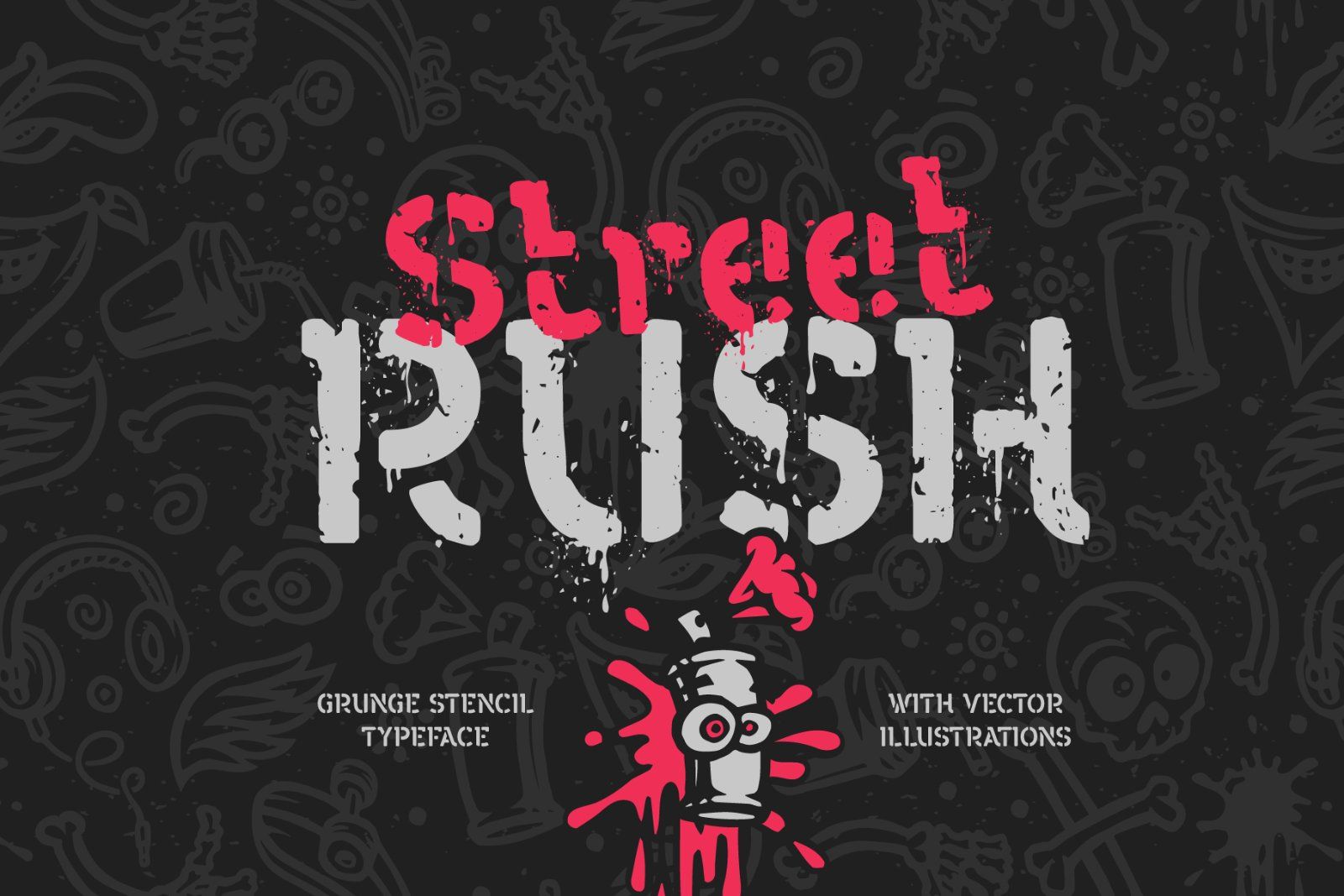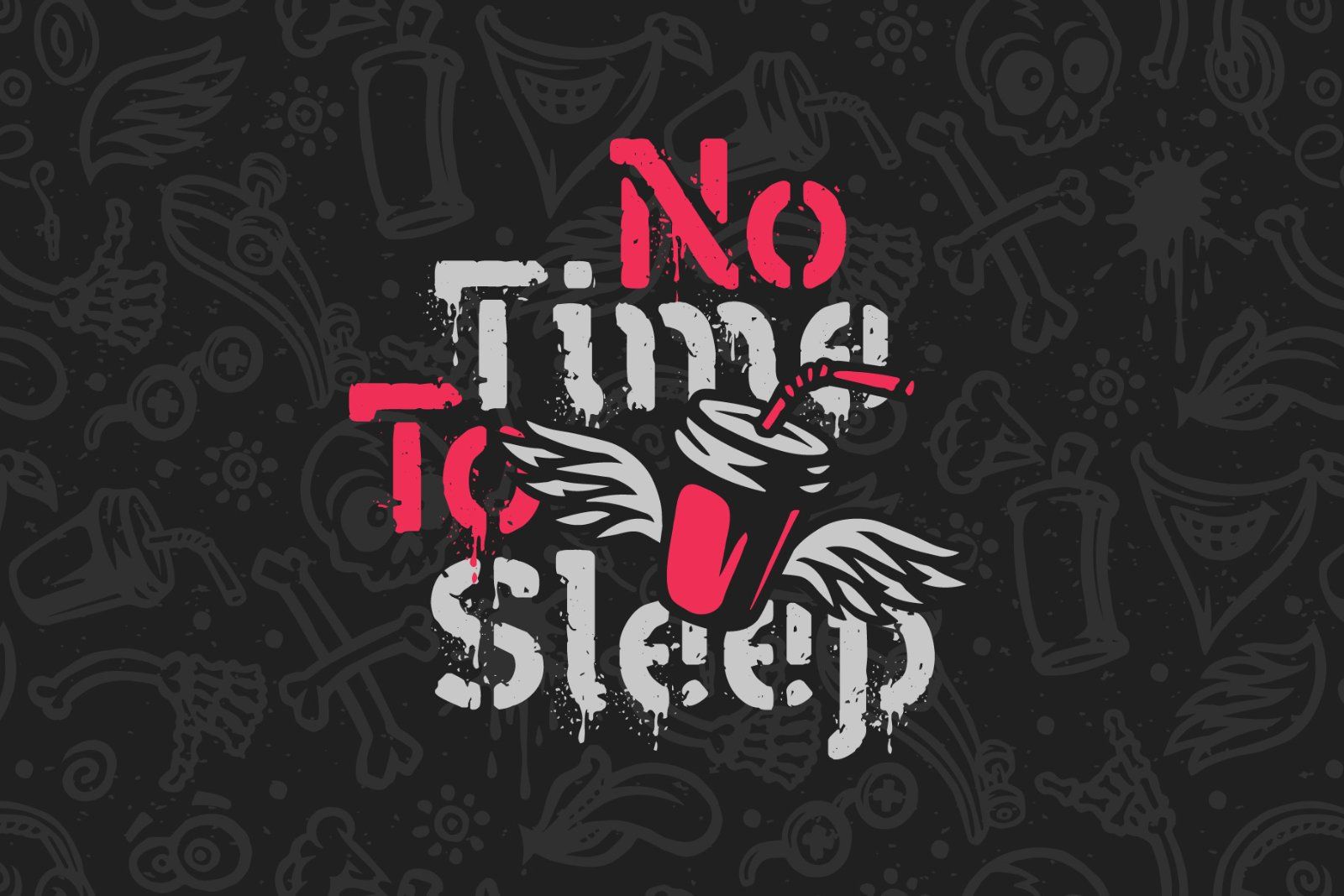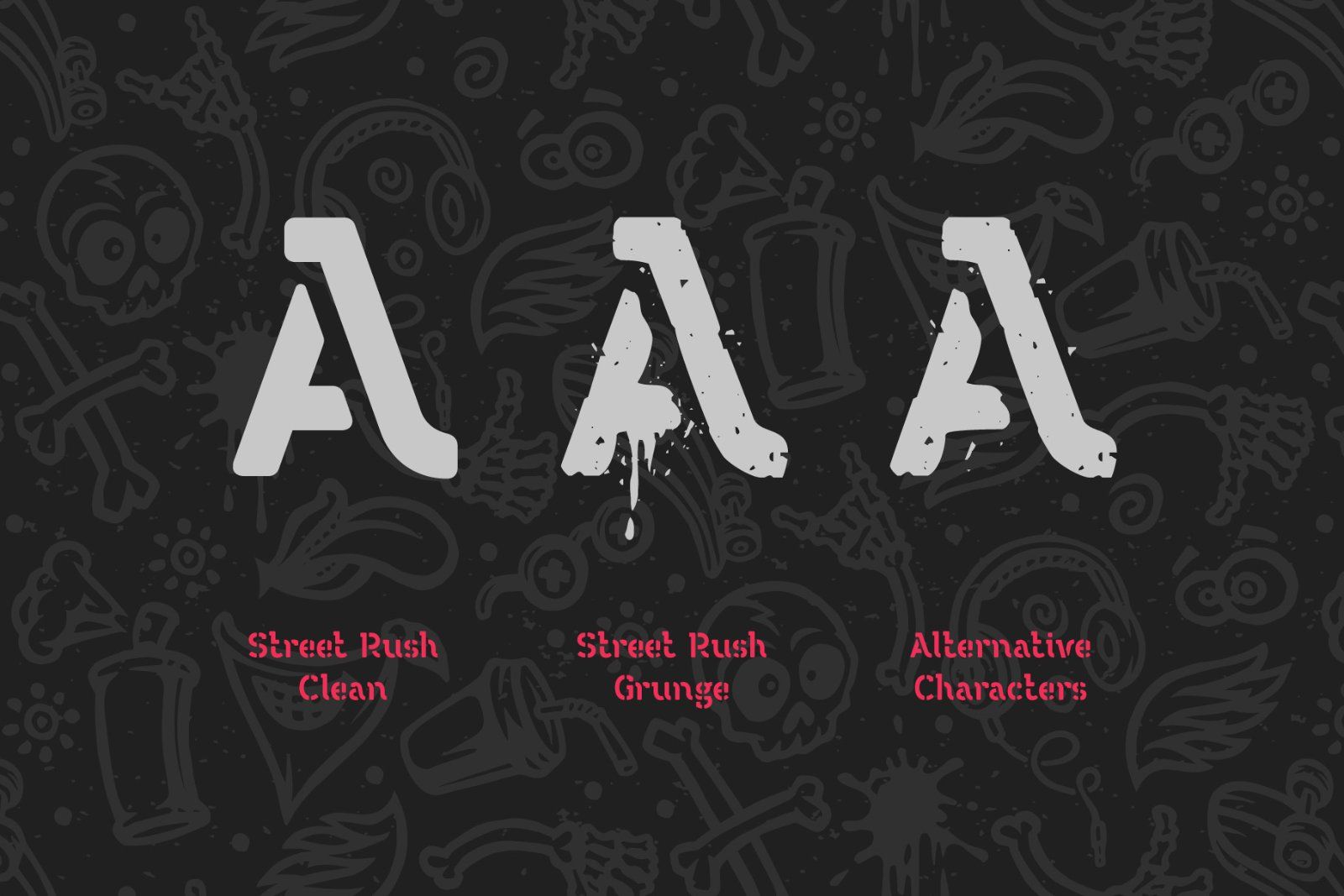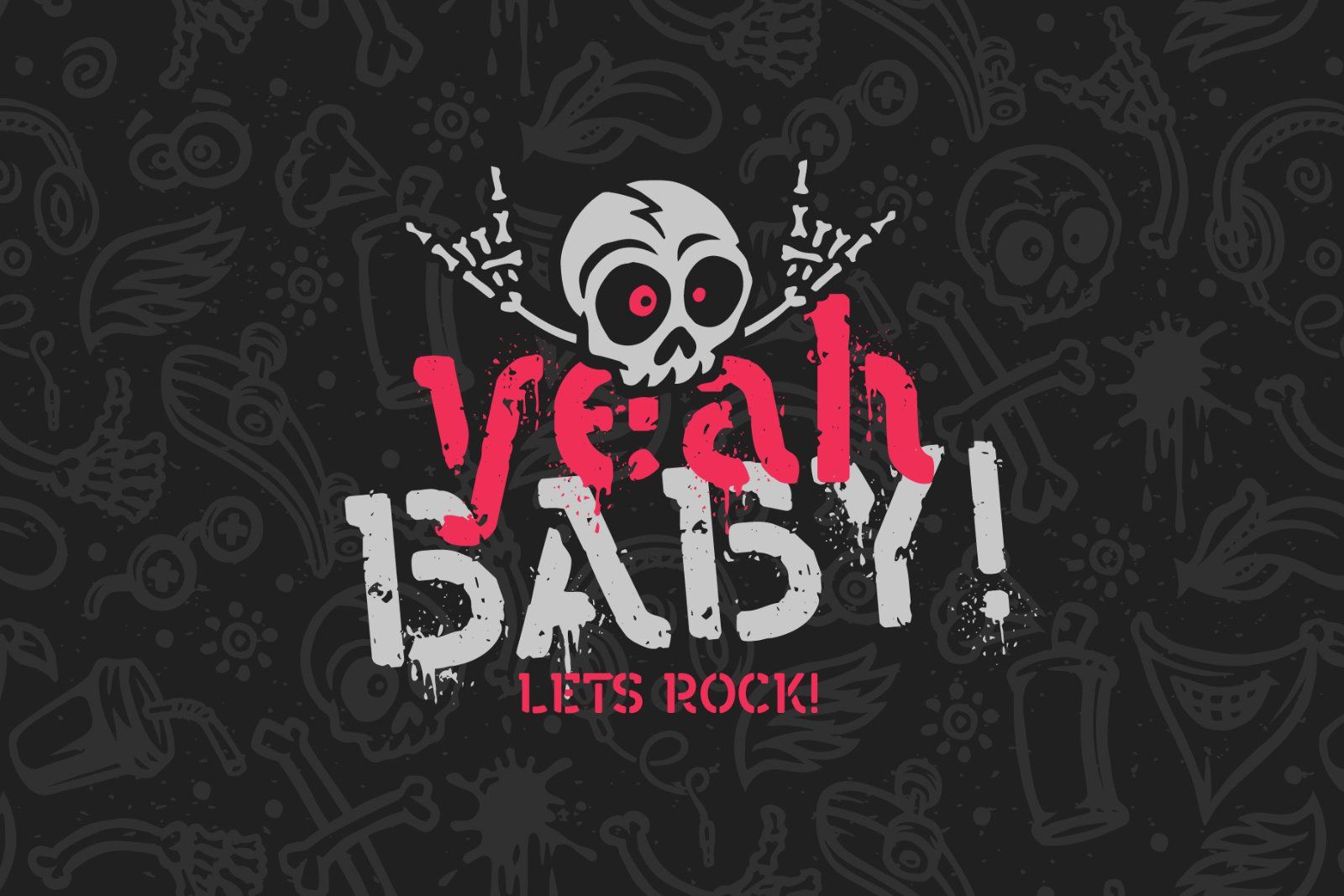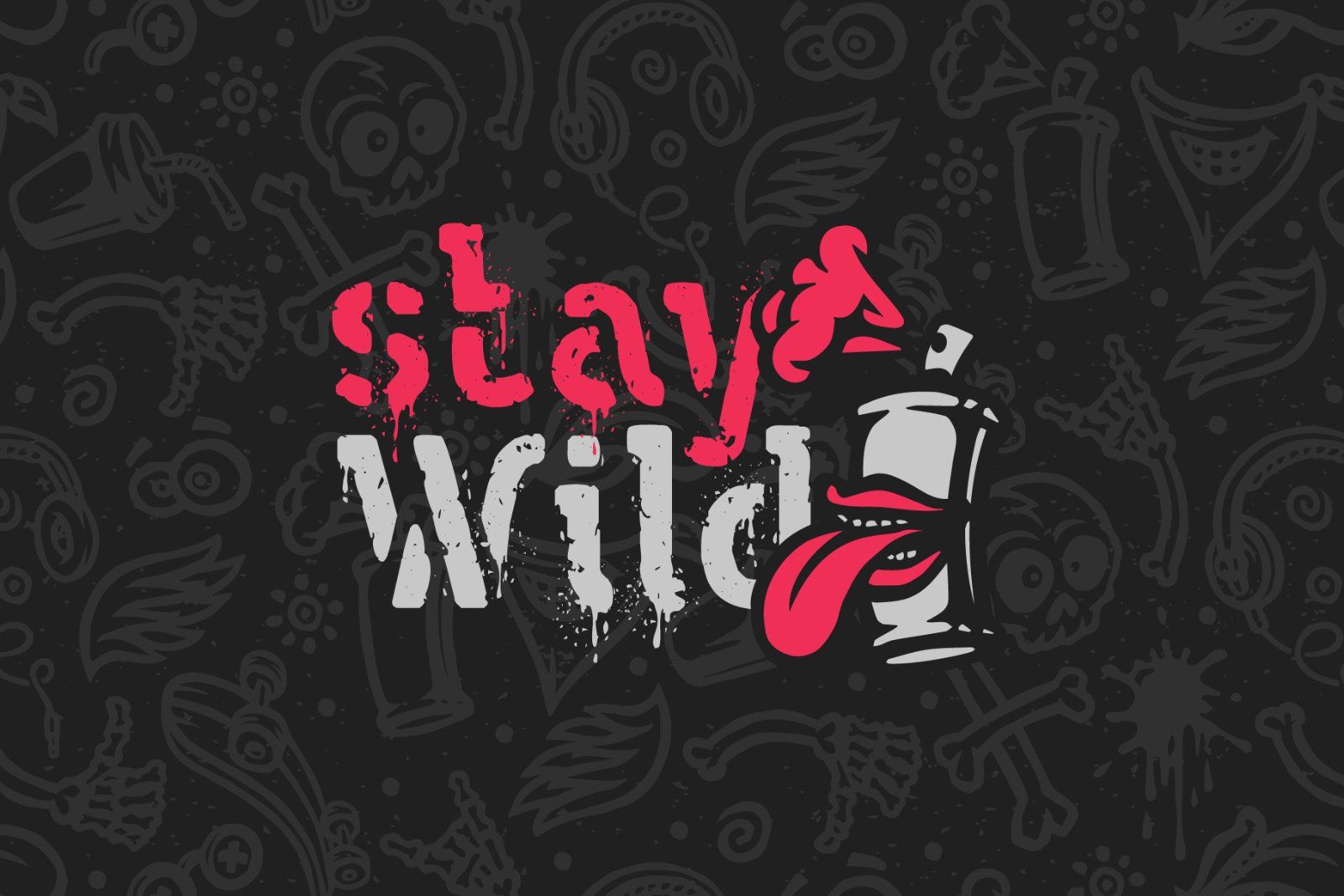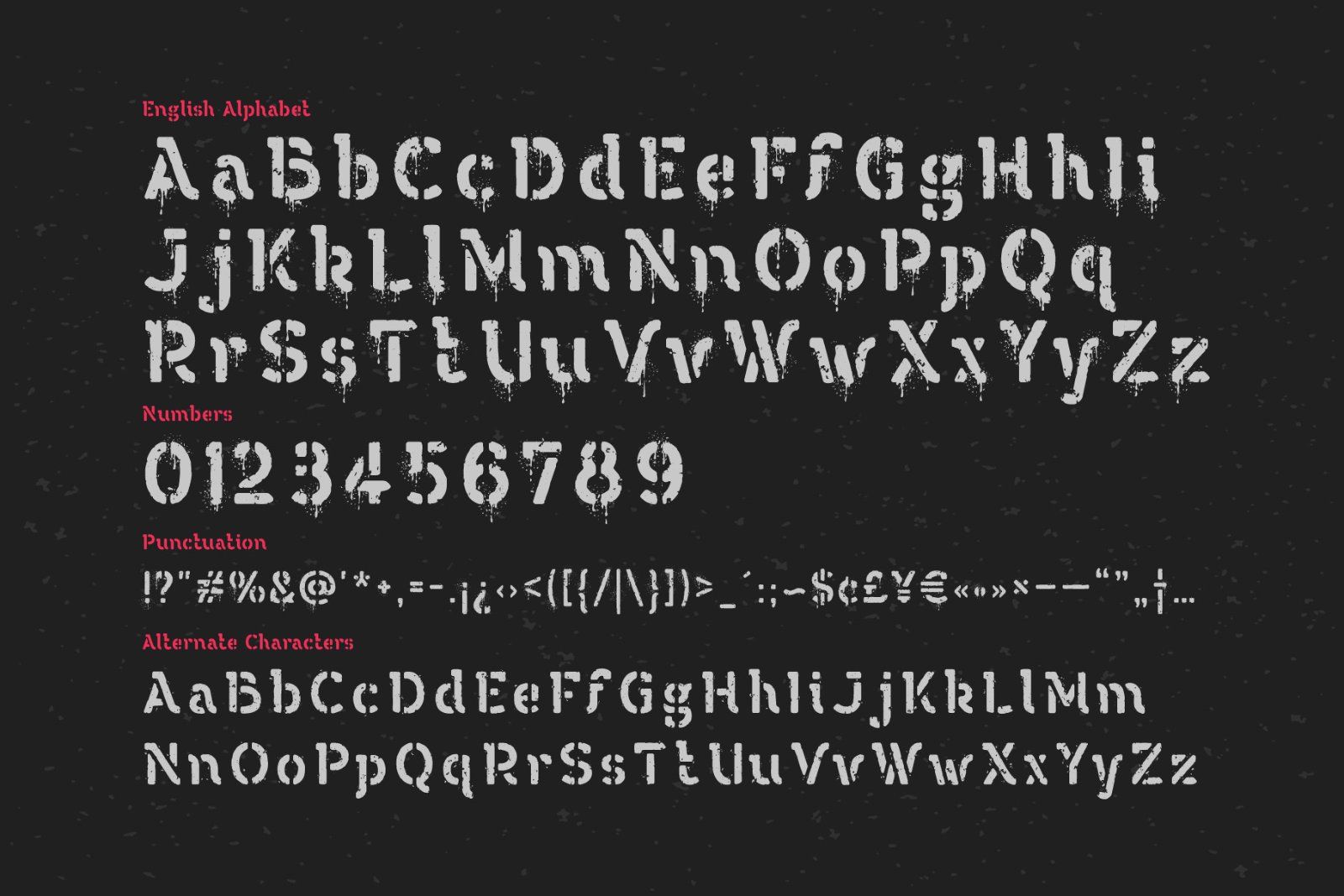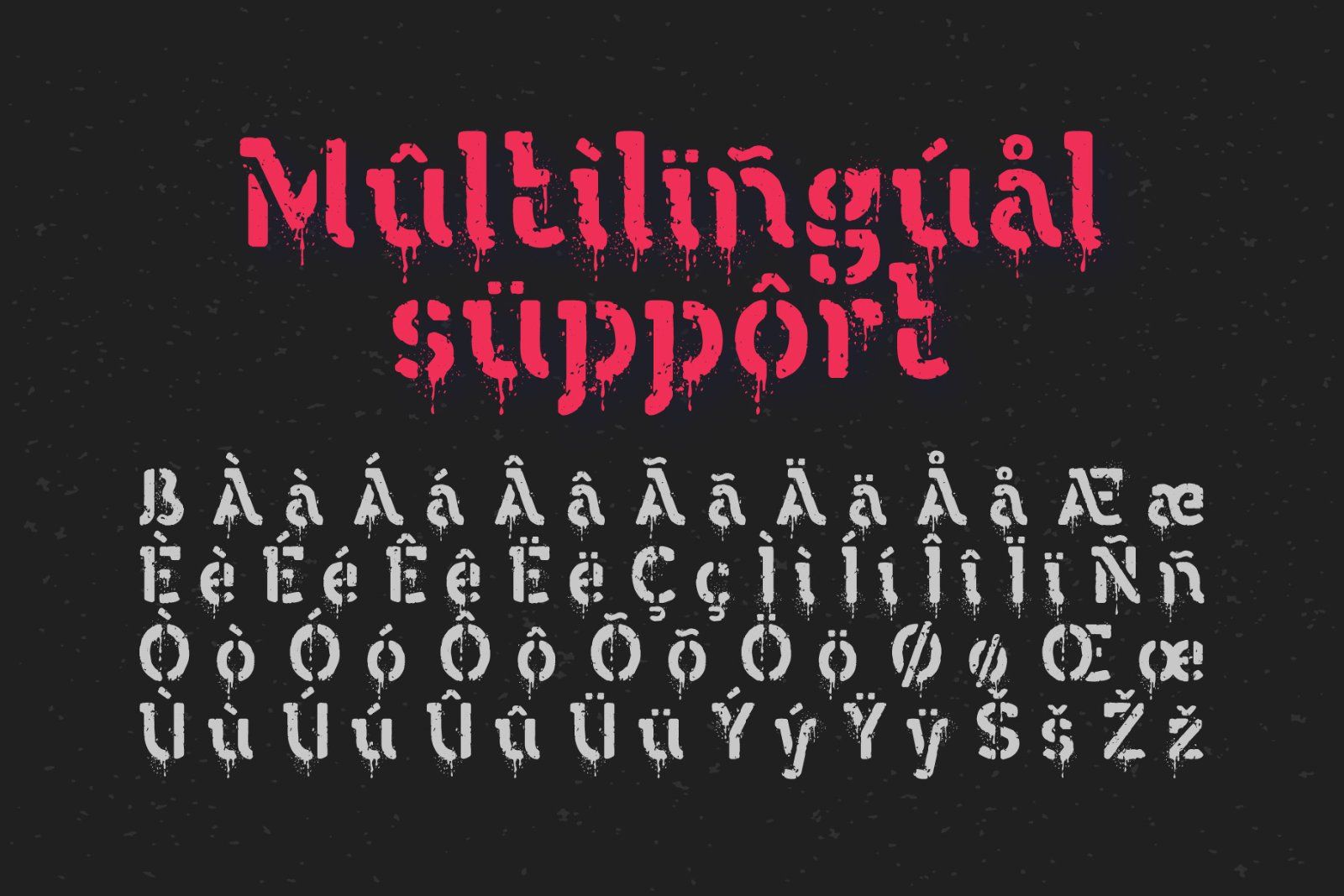
Introducing a creative font set Street Rush. It's a stencil typeface with grunge and clean variations. Grunge version has a rough damaged shape with imitation of a melting paint. Clean font suits better for smaller text without noisy details. Street rush font will perfectly fit for T-shirt print with different lettering compositions.
This font has west European multilingual support (check out all available characters on the screenshots). Grunge font has a set of alternative characters for English alphabet to avoid repetitive noise effect.
Also you'll get a set of vector illustrations that will help you create a unique funny prints.